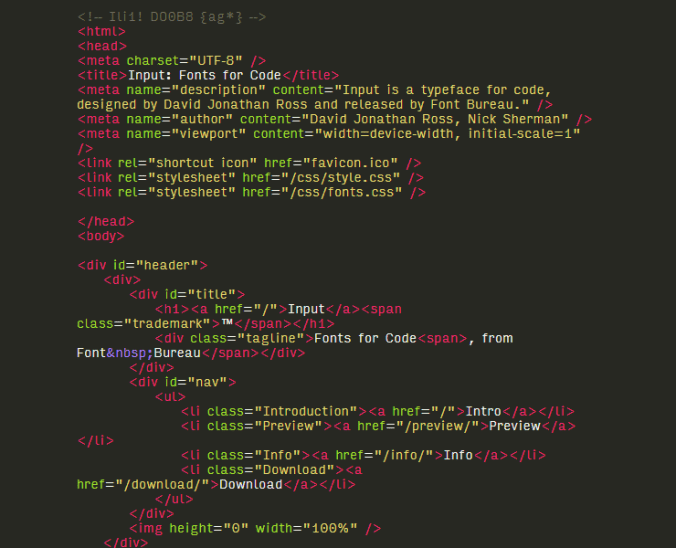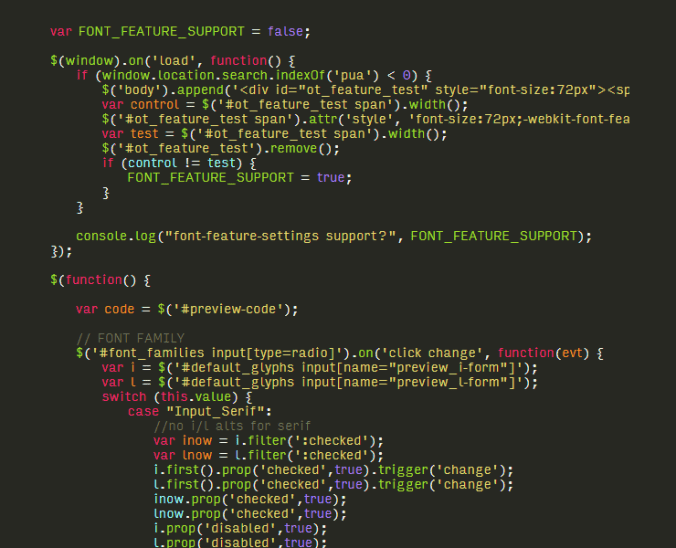
Input is a free font designed for coders. It draws inspiration from console fonts, but casts off the technical limitations that constrained them. Like any good coding font, Input has generous spacing, large punctuation, and easily distinguishable characters.
Much attention was paid to the size and positioning of symbols frequently used in coding — curly brackets, less-than and greater-than signs, the @ sign — characters that can easily be afterthoughts in the type design process.
It comes in 3 different variants: Sans, Serif and Monospaced and in 7 different weights from Thin to Black.
Input Font Preview:
HTML Code Preview:
Javascript Code Preview: